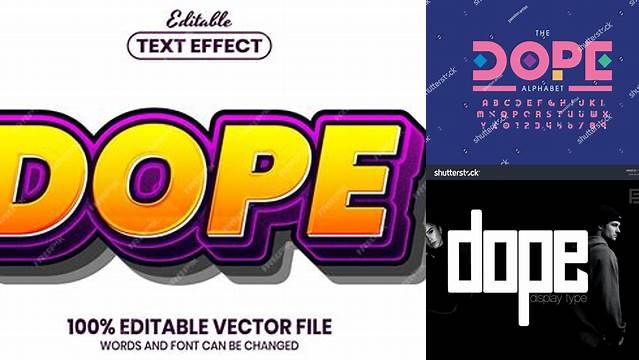
Dope Fonts: Free Display Logo Typefaces
Hey guys! Let's dive into the awesome world of fonts, specifically the 'dope unique display logo typeface font free download' scene. Finding the perfect font can seriously level up your design game, whether you're crafting a logo, designing a website, or just playing around with some creative projects. This guide will break down everything you need to know, from what makes a font 'dope' and 'unique' to where you can score some killer free downloads. Get ready to unleash your inner typography guru!
The Essence of Dope Fonts: What Makes a Font Stand Out?
So, what exactly makes a font 'dope'? Well, it's all about that wow factor, the ability to grab attention and leave a lasting impression. Dope fonts are often those that break the mold, offering a fresh perspective on traditional typography. They can be bold, experimental, or even a little bit quirky. The key is that they possess a distinct personality, a vibe that resonates with a specific audience or brand. Uniqueness plays a huge role here. You don't want a font that looks like everything else out there. You want something that sets you apart. This could be through a unique character design, an unconventional style, or a clever combination of elements. The best 'dope' fonts are those that tell a story, that have a sense of artistry and creativity woven into their very structure. When you look at a 'dope' font, you should feel inspired, like the font itself is a work of art, not just a tool for communication. These fonts often have a contemporary feel, perfectly suited for modern brands looking to make a splash. The choice often hinges on the specific project and the message the designer wants to convey. A font can be 'dope' because of its visual appeal or its ability to evoke emotion.
Now, let's talk about 'display' fonts. These are fonts designed to be used at larger sizes, primarily for headlines, titles, and logos. They're all about making a statement, commanding attention, and communicating a message instantly. Display fonts often prioritize visual impact over readability, meaning they might not be ideal for body text. They're all about that instant visual hit, the ability to grab someone's eye and say, 'Hey, look at this!' These fonts can range from super-bold and graphic to elegant and stylized. They can be futuristic, retro, or anything in between. Display fonts can have very distinct characteristics such as elongated forms or unusual angles that make them stand out. When you're looking for a 'dope' display font, consider the overall style and aesthetic of your project. Does it need to be loud and in-your-face, or something a bit more subtle and sophisticated? The right font can completely transform a design and elevate it to the next level. The best display fonts have a strong presence, are incredibly eye-catching, and are incredibly memorable. Display fonts can be the perfect method to introduce a unique brand identity.
Unveiling Unique Display Logo Typeface: Key Characteristics
When you're searching for a 'dope unique display logo typeface font,' you're looking for something truly special. Think about fonts that have a distinctive character, something that immediately sets them apart from the crowd. This might be in the form of unusual letterforms, a particular texture, or a unique combination of elements. It's about finding a font that is so distinctive that it can instantly identify your brand or project. These fonts are often designed with logos and branding in mind. They're meant to be the visual cornerstone of your identity. The typeface should not just be aesthetically pleasing, but also have a strong personality that reflects your brand's values. If you're a tech company, maybe you want something sleek and modern. If you're an artisan, something more handcrafted and textured might be ideal. If you are looking for a unique font, it's all about finding something that aligns with your project's identity. That means considering the overall tone, the message you want to convey, and the target audience. The best fonts are versatile enough to use across various applications, from print to digital. The key is to find a font that captures the essence of your brand and communicates it in a clear and memorable way. Choosing a font is a critical decision when building a brand.
Consider the font's weight, style, and overall design. Does it have a modern, vintage, or experimental feel? The choice should align with the brand's core values and target audience. Check the kerning and spacing of the characters. Are they visually balanced? Kerning issues can ruin even the most beautiful fonts. The ultimate aim is to find a display logo typeface that reflects your brand's personality. In the world of logos, a unique typeface can be the difference between being easily forgotten and making an immediate impression. The logo typeface should be considered an investment, since it represents the visual core of a brand.
Keyword: Display Font Design Principles
When designing a display font, several design principles are critical. First, legibility. While display fonts are meant for larger sizes, they still need to be readable. Consider the overall shape of the letters, the spacing between them, and the use of contrasting elements. Experiment with different weights and styles to find what works best. Visual hierarchy is also key. Use different weights, sizes, and styles to guide the viewer's eye and emphasize important information. Display fonts also need to be visually appealing. Think about the overall style and aesthetic. Should it be bold, elegant, or something else entirely? Consider the target audience and the message you want to convey. The font design must harmonize with the brand's overall design. Look at the contrast between the characters, the use of negative space, and how the font interacts with the background. These elements create visual harmony and make the font more appealing. The best display fonts balance aesthetics with functionality. A well-designed font can create a sense of cohesion in your design work.
Consider the font's versatility. Can it be used in various applications, from print to digital? The chosen font should offer different weights, styles, and alternative characters for added flexibility. Take into account the font's historical context. Is it inspired by a specific era or style? The design should match the design's identity. Pay attention to the details. Things like the shape of the serifs, the curve of the strokes, and the overall construction of the letterforms should be polished. A successful font is an iterative process. Testing and refining the font design based on feedback and real-world usage helps refine its impact.
Keyword: Finding Free Display Fonts
Looking for 'dope unique display logo typeface font free download' options? There are tons of websites that offer free fonts, but the key is to find reliable sources that provide high-quality fonts. Many of these websites have extensive libraries of fonts, making it easy to find something perfect for your project. Be sure to check the licensing details before you download and use any font. Some free fonts are only for personal use, while others have commercial licenses. Some popular websites include Google Fonts, DaFont, Font Squirrel, and Behance. All provide a range of free fonts. Google Fonts is a great option because it's easy to use and the fonts are optimized for web use. DaFont has a huge library of fonts, but you'll need to be careful about the quality and licensing. Font Squirrel has a great selection of free fonts, and they also verify the licensing. Behance is a creative platform where you can find fonts and download links. When downloading free fonts, always check the licensing terms. Be aware of any restrictions on usage. Before you start downloading fonts, make sure the website is secure, and that you have proper anti-virus protection.
Always read the license agreement. Understand what you can and cannot do with the font. This is especially critical if you plan to use the font for commercial projects. When browsing through free font websites, look for fonts with unique characteristics. This might include distinctive letterforms, unusual textures, or clever combinations of elements. Consider the versatility of the font. Can it be used in different contexts, or is it only suitable for specific applications? Test the font in your design to see how it looks and feels. Does it fit with your overall vision? When looking for free display fonts, it's about finding the perfect match.
Keyword: Best Practices for Font Downloads and Usage
Keyword: Display Font in Motion Graphics
Display fonts play a critical role in motion graphics, as they are often used to convey messages. With a 'dope unique display logo typeface font free download,' you can elevate your motion graphics. The right font can add visual appeal. Here's how to use display fonts: Prioritize legibility. Make sure the font is easy to read. Consider the animation. Does the font match the style? The chosen font must have clear letterforms. Choose a font that complements the motion graphics. The goal is to create a cohesive design. Pay attention to the kerning. Make sure the spacing is balanced. Consider the animation of the text. Use animation to enhance the impact. Always experiment with different fonts and styles. Test different colors and backgrounds. The correct font can add a dynamic look. The correct font will help enhance the animation. Display fonts are essential for creating compelling motion graphics.